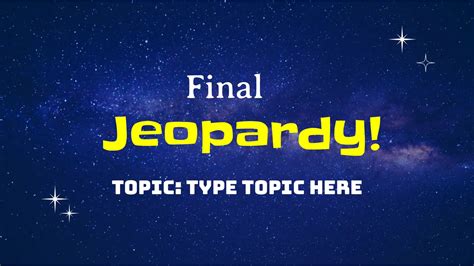
The world of typography is vast and diverse, with each font carrying its unique charm and historical significance. Among the many fonts that have left an indelible mark on popular culture, the Jeopardy Game Show Font stands out as a quintessential example of iconic design. This font, synonymous with the beloved game show "Jeopardy!," has become a cultural icon in its own right, embodying the spirit of trivia and intellectual competition.
The History of the Jeopardy Game Show Font
The Jeopardy Game Show Font has a rich history that dates back to the inception of the game show itself. Created by Merv Griffin, “Jeopardy!” first aired in 1964 and has since become a staple of American television. The font used in the show’s logo and branding has evolved over the years, but its essence has remained consistent, reflecting the show’s enduring appeal.
The original font used in "Jeopardy!" was designed to be bold and attention-grabbing, perfectly capturing the excitement and energy of the game show. Over the decades, the font has undergone several refinements, but it has always retained its distinctive characteristics. The current iteration of the Jeopardy Game Show Font is a testament to the show's timeless appeal and its ability to adapt to changing times while staying true to its roots.
Characteristics of the Jeopardy Game Show Font
The Jeopardy Game Show Font is known for its unique and recognizable features. Some of the key characteristics include:
- Bold and Dynamic: The font is designed to be bold and dynamic, with thick strokes and sharp edges that command attention.
- Serif Style: It features serifs, which are small lines or strokes regularly attached to the end of a larger stroke in a letter or symbol. This gives the font a classic and elegant look.
- Uppercase Letters: The font primarily uses uppercase letters, which adds to its bold and authoritative appearance.
- Distinctive Shapes: Each letter has a distinctive shape that makes it easily recognizable, even from a distance.
The Impact of the Jeopardy Game Show Font on Popular Culture
The Jeopardy Game Show Font has had a significant impact on popular culture, becoming synonymous with the game show itself. Its distinctive design has been emulated in various contexts, from merchandise to digital media, further cementing its status as an iconic font. The font’s association with intelligence, competition, and entertainment has made it a popular choice for branding and design projects that aim to evoke similar themes.
One of the most notable aspects of the Jeopardy Game Show Font is its ability to evoke nostalgia. For many viewers, the font is inextricably linked to memories of watching the game show with family and friends. This emotional connection has contributed to the font's enduring popularity and its status as a cultural icon.
Using the Jeopardy Game Show Font in Design Projects
If you’re looking to incorporate the Jeopardy Game Show Font into your design projects, there are several factors to consider. First and foremost, it’s important to understand the context in which the font will be used. The Jeopardy Game Show Font is best suited for projects that aim to evoke a sense of excitement, competition, and intellectual challenge.
Here are some tips for using the Jeopardy Game Show Font effectively:
- Choose the Right Context: The font is ideal for game shows, trivia events, educational materials, and any project that requires a bold and authoritative look.
- Pair with Complementary Fonts: To create a balanced design, pair the Jeopardy Game Show Font with complementary fonts that have a more subdued and readable appearance.
- Use Sparingly: Given its bold and dynamic nature, the font should be used sparingly to avoid overwhelming the design. Reserve it for headings, titles, and other prominent elements.
- Consider Color and Contrast: The font's bold design makes it highly visible, but it's important to consider color and contrast to ensure readability. Use contrasting colors to make the text stand out against the background.
Here is a table that summarizes the key characteristics and usage tips for the Jeopardy Game Show Font:
| Characteristic | Usage Tip |
|---|---|
| Bold and Dynamic | Use for headings and titles to command attention. |
| Serif Style | Pair with sans-serif fonts for a balanced design. |
| Uppercase Letters | Use for short, impactful text. |
| Distinctive Shapes | Ensure readability by using contrasting colors. |
💡 Note: When using the Jeopardy Game Show Font, always consider the overall design aesthetic and ensure that the font complements the other elements of your project.
Alternatives to the Jeopardy Game Show Font
While the Jeopardy Game Show Font is a unique and iconic choice, there are several alternatives that offer similar characteristics. These fonts can be used as substitutes when the Jeopardy Game Show Font is not available or when you want to explore different design options. Some popular alternatives include: